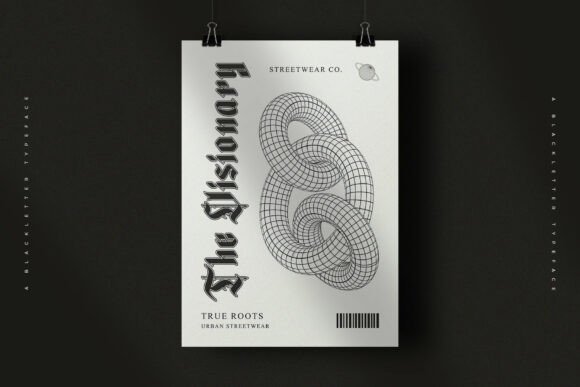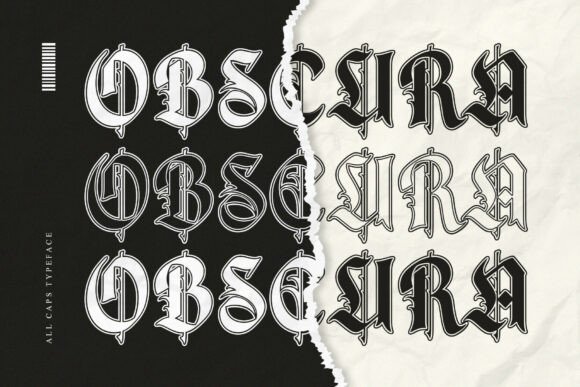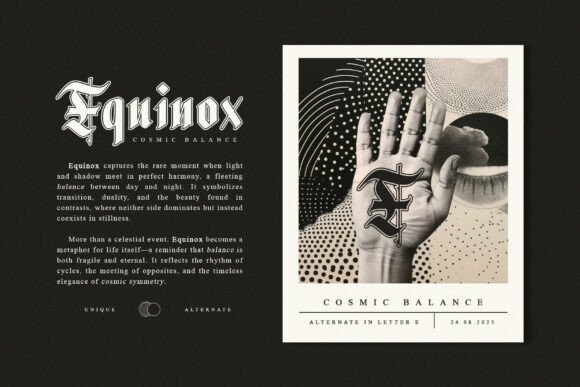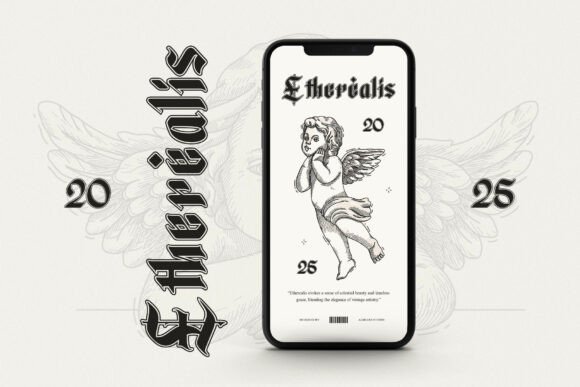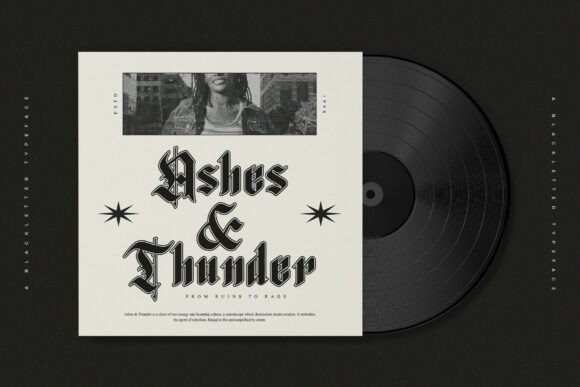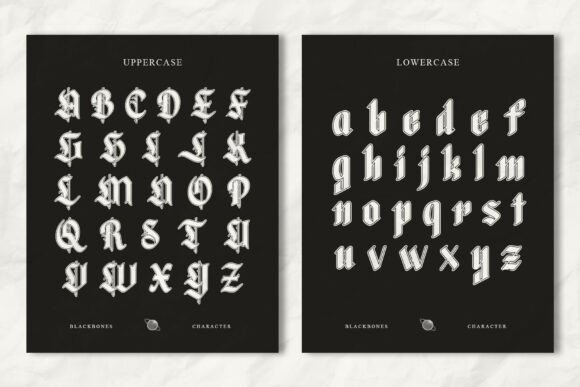
Unleashing Bold Character with Blackbones Font
I’ll never forget the design struggle that led me to discover Blackbones Font. I was working on a project for a heavy metal band’s merchandise, and I needed a font that could convey the raw energy and rebellious spirit of their music. After hours of scrolling through font libraries, I stumbled upon Blackbones – a striking Blackletter typeface that instantly resonated with the band’s aesthetic. Its strong, sharp letterforms seemed to scream “bold” and “fearless,” making it the perfect fit for their logo.
A Powerful Statement for Bold Creatives
Blackbones Font is more than just a font – it’s a powerful statement for any bold creative project. This striking Blackletter typeface fuses gothic tradition with a modern edge, making it perfect for designs that demand attention. From band logos and apparel to tattoo-inspired graphics, posters, and editorial layouts, Blackbones brings a level of sophistication and edge that’s hard to match.
What I Love About Blackbones Font
- ✨ Unique and bold design: Blackbones’ sharp letterforms and gothic-inspired aesthetic make it stand out from more traditional fonts.
- ✅ Highly versatile: Whether you’re designing for print or digital, Blackbones adapts seamlessly to different mediums and contexts.
- 🔍 Designed with alternates and ligatures: This font offers full control over your typography, allowing you to create dynamic and handcrafted designs.
While Blackbones Font is an incredible design tool, there are a few quirks to keep in mind:
- 🤔 Legibility at small sizes: Like many Blackletter fonts, Blackbones can be challenging to read at very small sizes. It’s best used at larger sizes where its bold character can shine.
- ⚠️ Limited use in body text: Due to its ornate design, Blackbones is better suited for headlines and titles rather than lengthy body text.
The Story Behind Blackbones Font
Blackbones Font was inspired by the raw energy of gothic and heavy metal aesthetics. Its designer sought to create a typeface that embodies both the traditional and the bold, resulting in a font that’s both timeless and modern. The result is a versatile and powerful tool for creatives looking to make a statement.
| Font Name | Blackbones Font |
| Author | krismagraph |
| What makes Blackbones Font unique? | Blackbones Font combines traditional Blackletter elements with a modern edge, making it stand out with its strong, sharp letterforms. |
| Is Blackbones suitable for body text? | While Blackbones can be used for short paragraphs, it’s primarily designed for headlines and titles due to its ornate and bold style. |
| Does Blackbones support OpenType features? | Yes, Blackbones Font includes OpenType features such as alternates and ligatures, allowing for dynamic and customizable typography. |